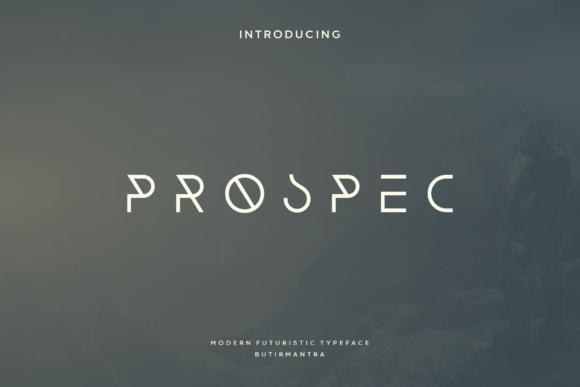
Enter the realm of Prospec Font, a typographic masterpiece that captivates with its futuristic allure and modern elegance. This sans serif font, crafted by the visionary garismantra, is an ode to simplicity and sophistication, transforming your designs into works of art.
With Prospec Font, less is more. Its clean lines and uncluttered design create a visual feast that demands attention. The all-caps characters exude a sense of authority and confidence, making your messages impossible to ignore. Whether you're crafting logos, posters, magazines, or headlines, Prospec Font adds a touch of luxury that elevates your work to new heights.
Unleash your creativity with Prospec Font and explore a world of possibilities. Its versatility knows no bounds, adapting seamlessly to a myriad of design projects. Create eye-catching logos that leave a lasting impression, design posters that speak volumes with their bold typography, or captivate readers with magazine layouts that exude sophistication.
Prospec Font is more than just a font; it's an experience. Its clean and elegant aesthetic is a breath of fresh air, bringing a sense of order and harmony to your designs. Experience the joy of creating with a font that enhances your work, making you look like a design virtuoso.
Step into the future with Prospec Font and embrace the power of simplicity. Let your designs shine with a font that speaks volumes with its understated elegance. Prospec Font is the key to unlocking your creative potential and leaving a lasting impact on your audience.